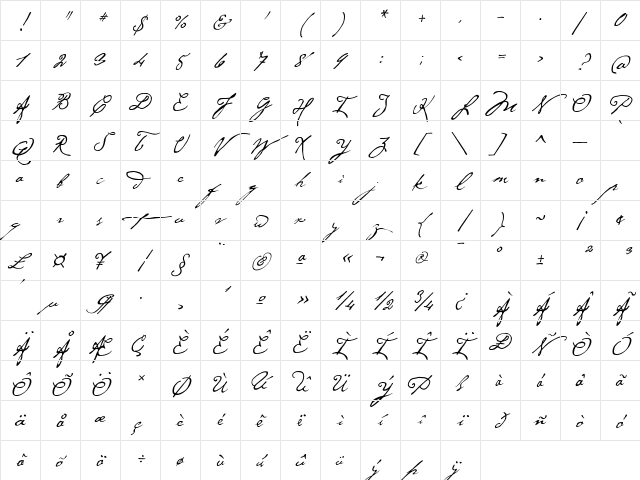
P22 Cezanne Pro Regular
Designer: James Grieshaber, Michael Want
Design Context for P22 Cezanne Pro
P22 Cezanne Pro is a composed and adaptable typeface that performs quietly and consistently across a wide range of design contexts.